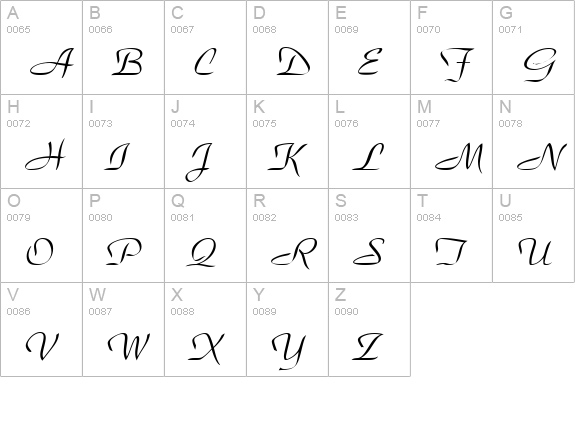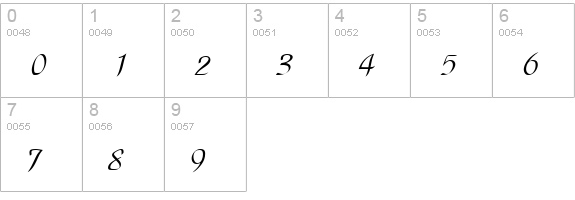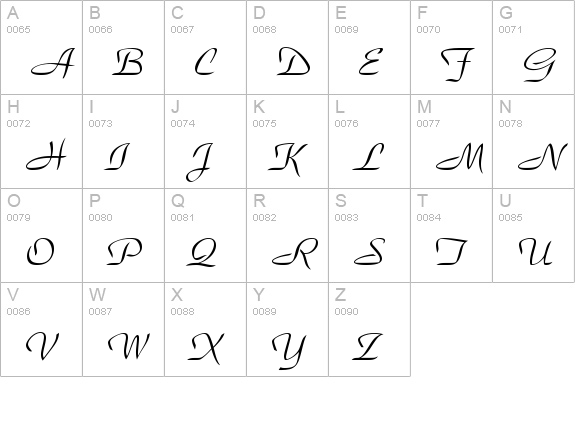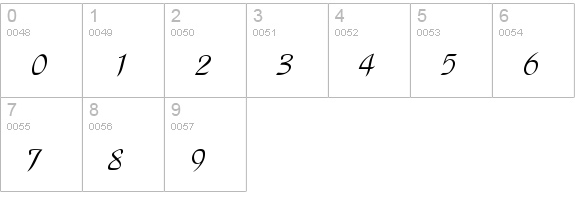
ParkAveDEE font is a beautifully elegant typeface that exudes sophistication and class. With its sleek lines and graceful curves, this font is perfect for adding a touch of refinement to any design project. The ParkAveDEE font captures the essence of luxury and timeless style. Its tall and slender letterforms are reminiscent of the classic Art Deco era, evoking a sense of glamour and opulence. Each letter is meticulously crafted, creating a harmonious balance between the bold strokes and delicate details. This font is versatile and can be used for a variety of purposes. Whether you are designing a logo, creating an invitation, or crafting a website, ParkAveDEE font will elevate your design to new heights. Its clean and legible characters ensure readability, while its unique style adds a touch of sophistication. One of the best features of ParkAveDEE font is that it is available for free to download at FontsMarket.com. This means that you can easily access this stunning typeface without any cost. It is a great opportunity to enhance your design projects without breaking the bank. ParkAveDEE font is a true gem in the world of typography. It is a testament to the power of elegance and style in design. With its timeless appeal and freely available download, this font is a must-have for any designer or creative professional. So go ahead and add a touch of luxury to your next project with ParkAveDEE font.